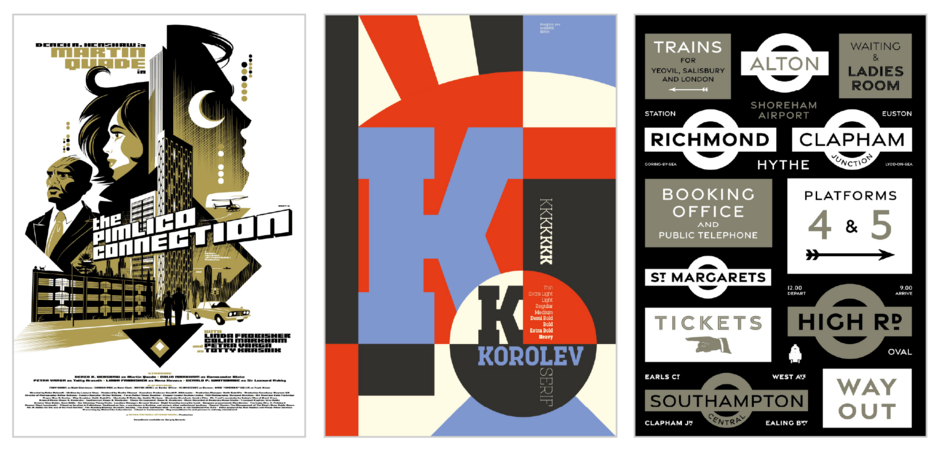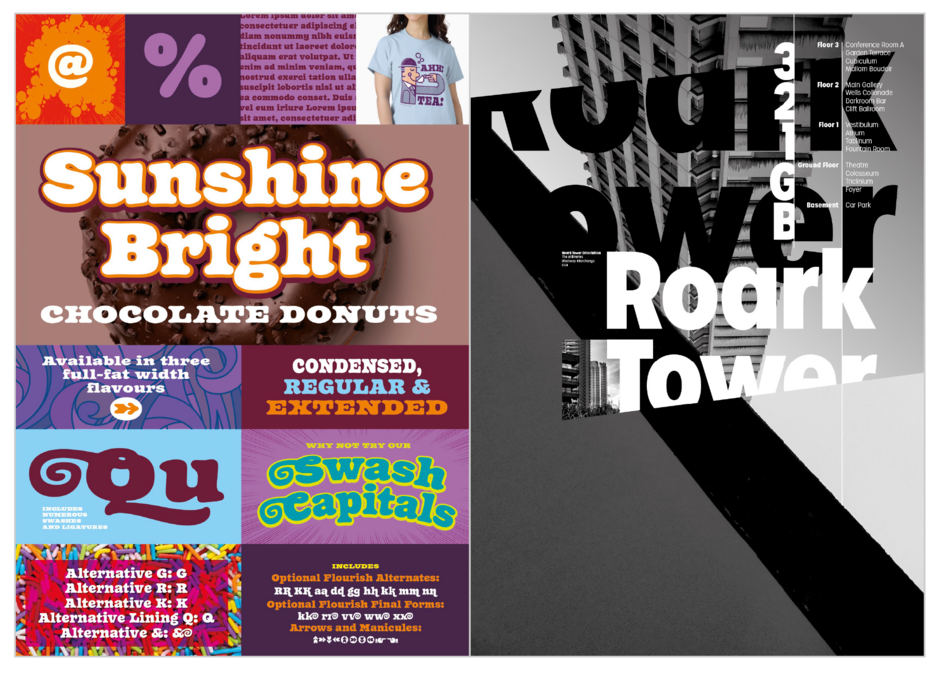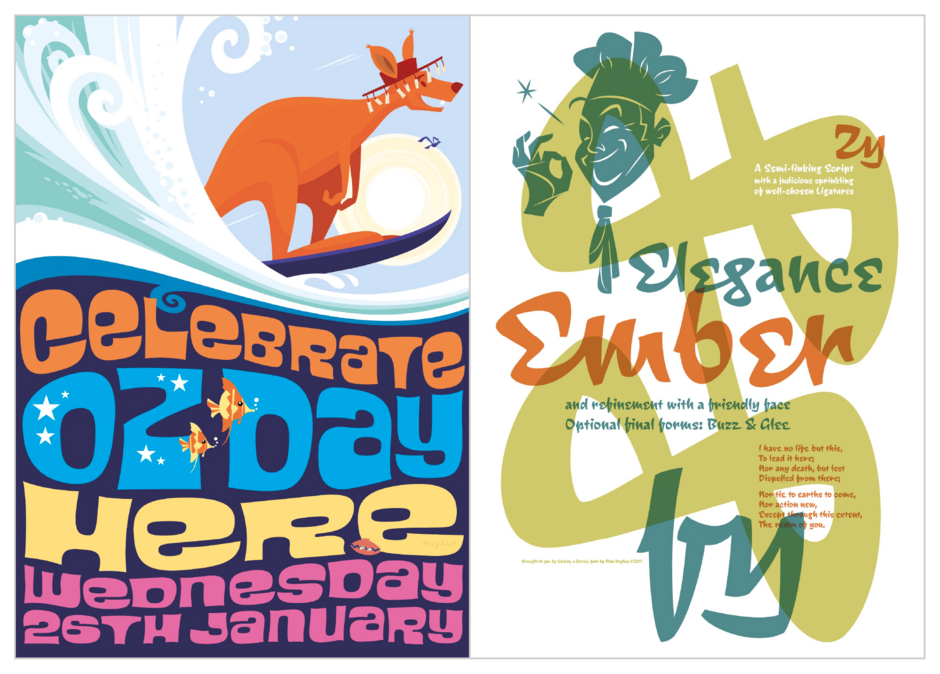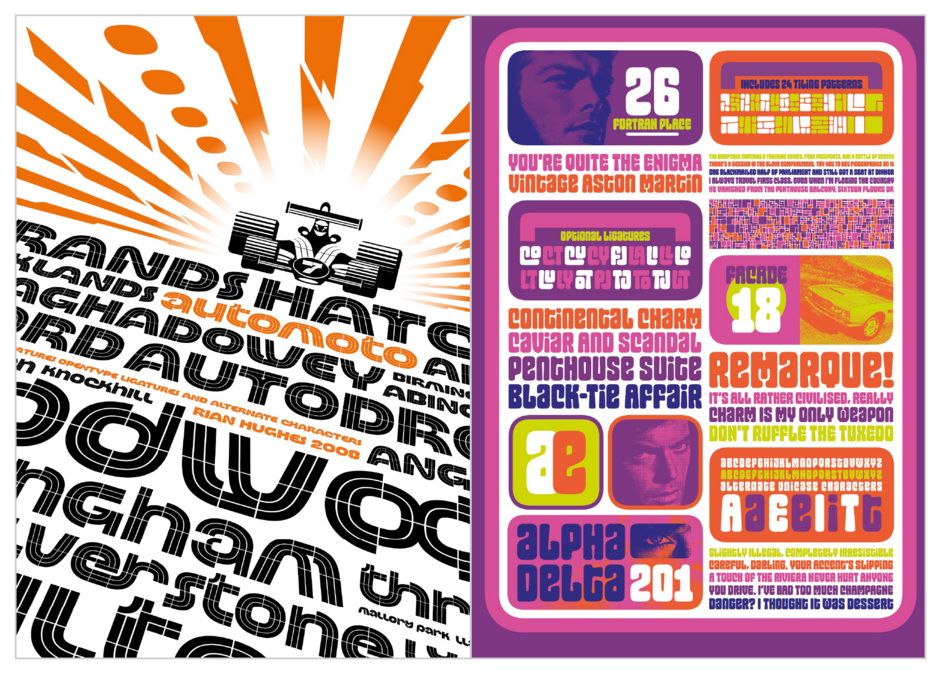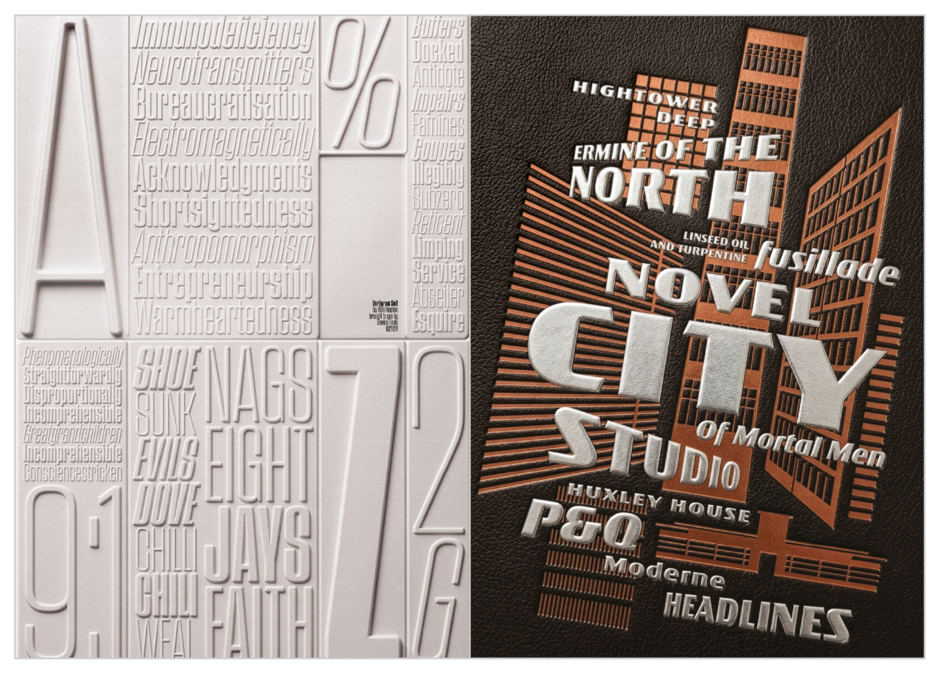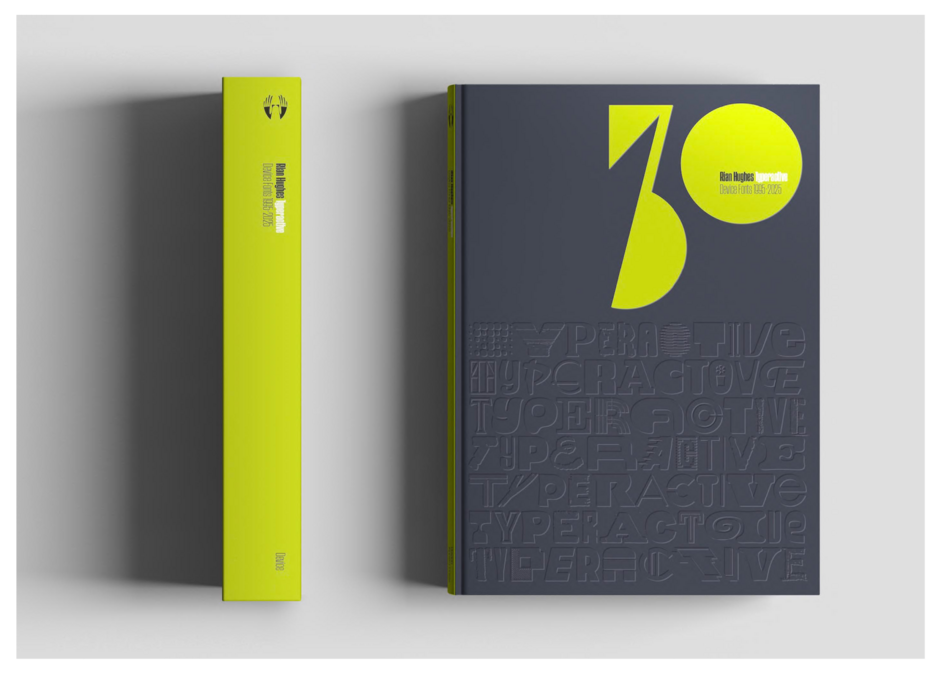
Labeling Rian Hughes as merely eclectic undersells the breadth of his output. A masterful type designer, he also works as a graphic designer, illustrator, novelist, and occasional comic book artist. Rian’s portfolio spans the worlds of British and American publishing, music, advertising, and comics.
His early fonts made their debut through FontShop, becoming an important part of the FontFont library. Then, in 1997, Rian launched Device Fonts to take the reins of his growing collection. “I was producing more fonts than Font Shop’s quarterly release schedule could manage,” Rian explains. “In addition, having control over the presentation and sale of your fonts is important in building up a distinctive brand.”
Since then, Device Fonts has released over 350 original families with more than 1,800 individual weights. Rian has designed custom fonts for clients as diverse as Mac User, 2000 AD, and The Teenage Mutant Ninja Turtles.
“Some Device fonts were standalone commissions, while others were part of a design project where I found there wasn’t an existing typeface that was appropriate,” Rian recalls. “Sometimes I’ll have an unreleased family to hand, and a project will come along at just the right time to field-test it. Others evolved from logos or magazine headlines. If a one-off piece of lettering looks like it might work as a complete font, I’ll put it aside to work it up later.”
“But by far the largest proportion of my fonts were designed without a specific client in mind. Often, I’ll realize that there isn’t an existing design that conveys the right tone of voice for a particular field, and I’ll try and fill that gap. I think that many of my popular designs do just this – they are useful because they have a distinct, original, but not too narrow, appeal that designers can build on.”
“Fonts that are more decorative or historically specific will tend to be used only in niche applications, which can limit their appeal. But because I was weaned on the excesses of Letraset and expressive headline fonts by the likes of Roger Excoffon, Aldo Novarese, Ed Benguiat and Colin Brignall, I’ll design them anyway and hope they find a receptive audience.
“In fact, decorative fonts are growing in popularity, maybe as a response to the overuse of bland sans serifs. It’s happened before – there was a time in the late 60s and early 70s when every corporate wordmark seemed to be set in Helvetica – and then, as a counterpoint, we saw the excesses of psychedelia and drop-shadow Bookmans and Didones with expressive swashes and curved baselines flourish. I’m hoping we’re entering a new period of typographic flamboyance, not least because some of my underused fonts may get a look-in.”
Device Fonts’ collection ranges from single-weight designs to expansive typeface families. When asked about this variety, Rian shared, “If an idea or sketch progresses into a complete font, I’ll often expand it into a family. Sometimes I release just one or three weights to test the waters, and if the design proves popular, I’ll add italics or condensed and extended versions. This approach is how the Korolev family grew so large.
If there is one piece of advice Rian would give an aspiring typeface designer, Rian said, “Be prepared to really get into the weeds with the details. The hours spent finessing your design might be all but invisible to the non-typographer but will make all the difference. And cultivate a wellspring of original ideas. Original ideas never go out of style.”
Reflecting on Device Fonts’ 30th anniversary, Rian says “It’s been a three-decade passion project. Preparing Typeractive, our 30th anniversary retrospective book, has helped me appreciate how fortunate I am to be able to follow my muse.
“Type design will always continue – we have tens of thousands of fonts, but we’ve not even begun to exhaust the possibilities. That’s the amazing thing about our Latin alphabet – its versatility, expressiveness, and the way it can be continually reinvented to capture a new zeitgeist. Long may it continue.”